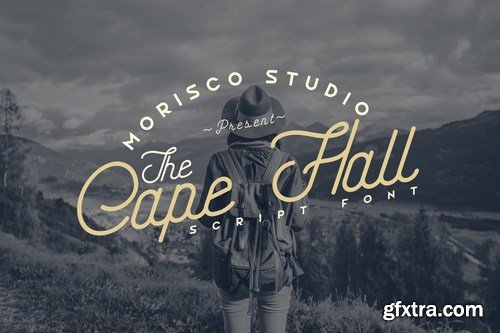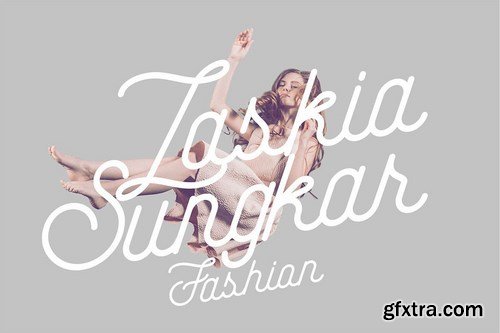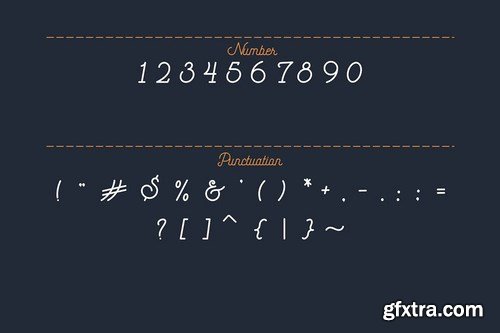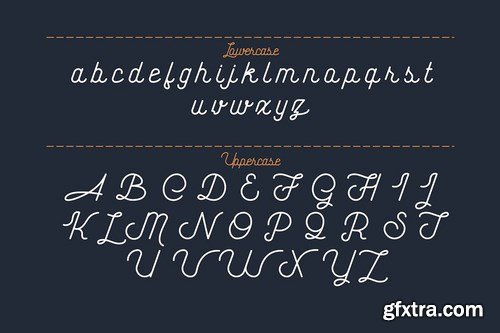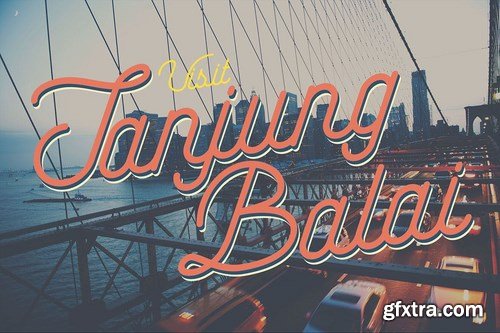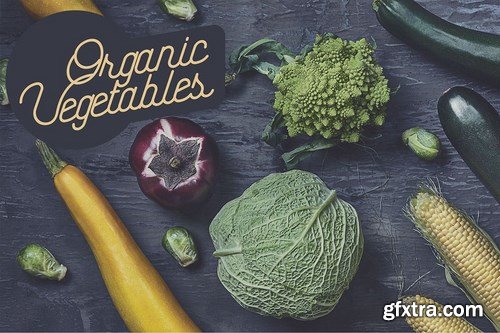
The Cape Hall is a Monoline Script font, perfect for all purposes like branding, labeling, designing, and more.Included Uppercase, lowercase, numbers, and punctuation.